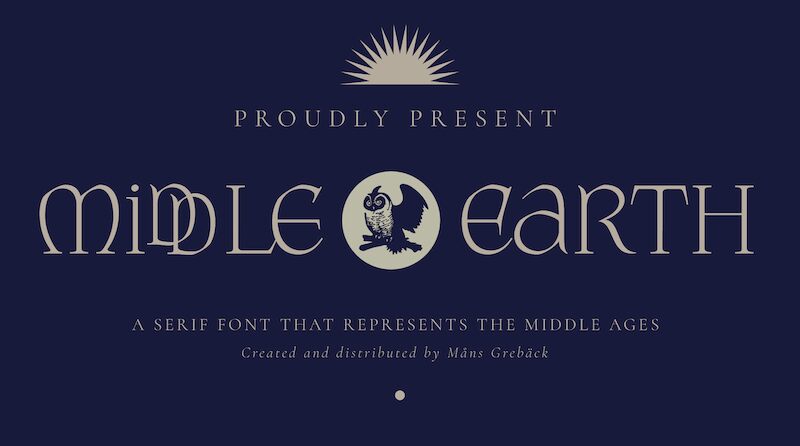
With its semi-light weight and celtic style, Middle Earth font brings a touch of gothic elegance to any project.
Perfect for fantasy novels, role-playing games, or movie posters, this font captures the essence of magical realms and mythical creatures. Its enchanting curves and historic charm make it ideal for conveying tales of valor and legends. Whether creating invitations to a medieval-themed wedding or designing logos for fantasy-inspired brands, Middle Earth typeface adds a touch of ethereal beauty that will captivate audiences.
Let your imagination wander with this captivating font.
Use parentheses characters ( ) { } [ ] to make symbols such as wolves, eagles or lions.